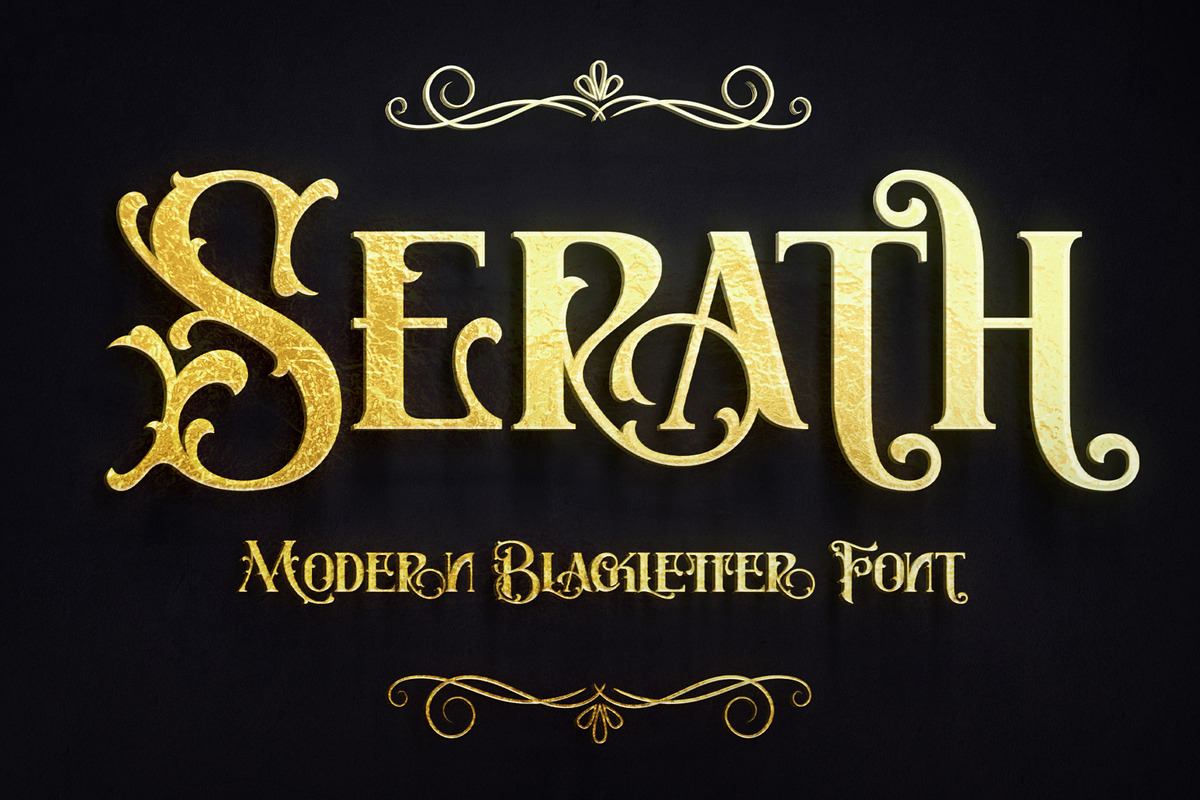
Serath Font Free Download is a stylish and refined serif typeface crafted to bring elegance and professionalism to your design projects. With its balanced letterforms, smooth curves, and clean finishes, Serath is perfect for branding, editorial layouts, logo design, and high-end product packaging. It offers a timeless aesthetic that works beautifully across both modern and classic themes.
This font is especially effective in titles, headlines, and display text, where its sophisticated character can truly shine. Serath combines traditional typography influences with a contemporary twist, delivering a font that feels both established and fresh.